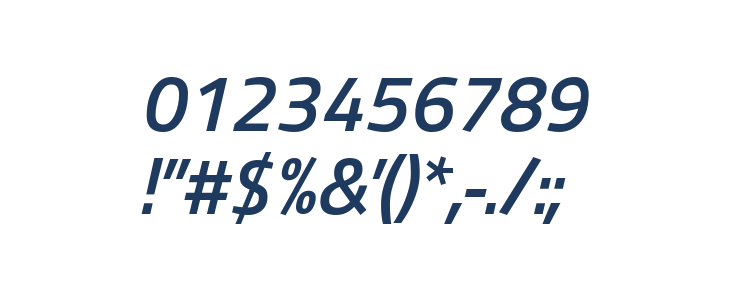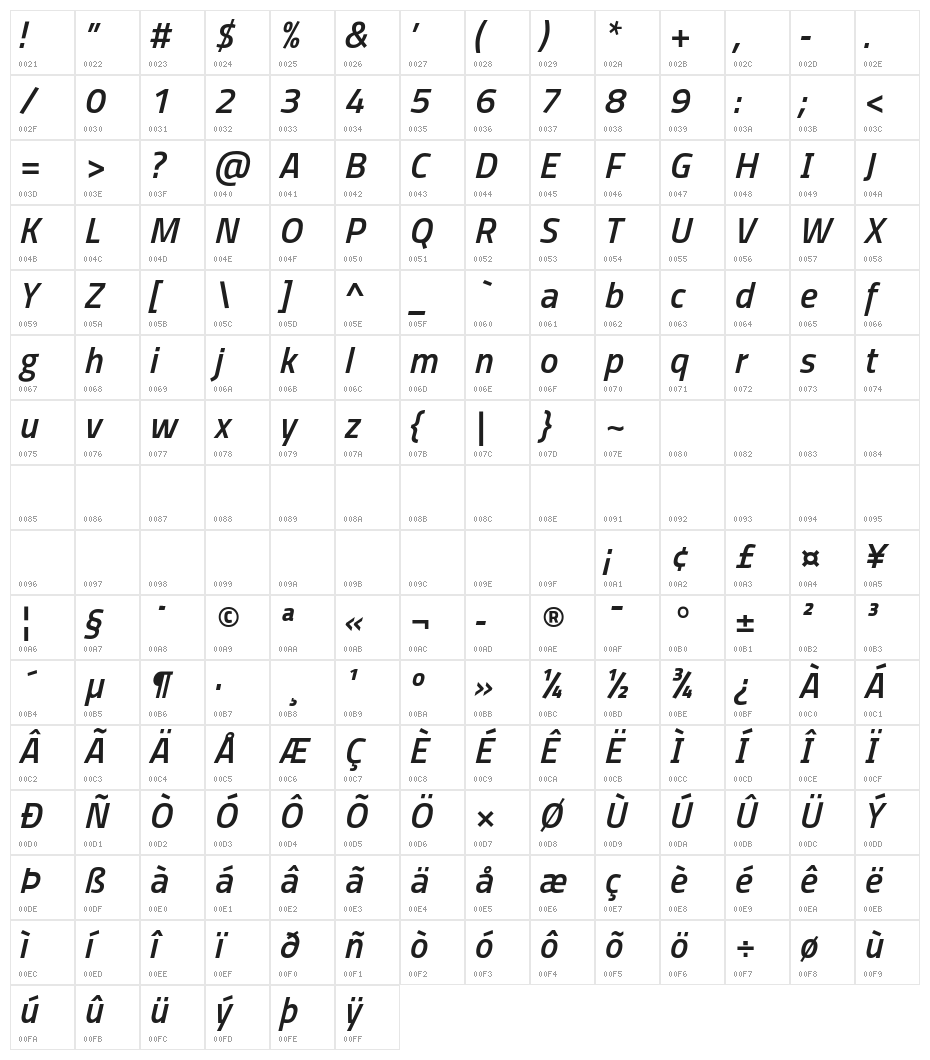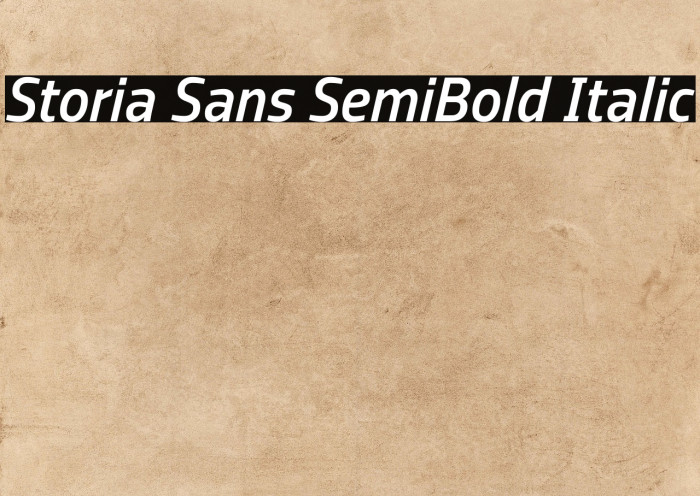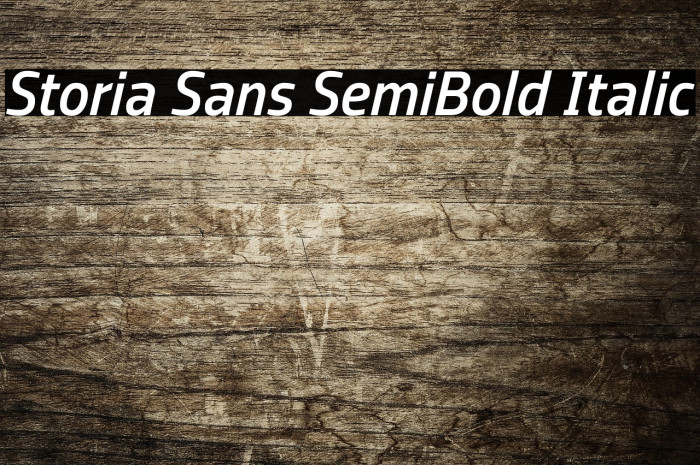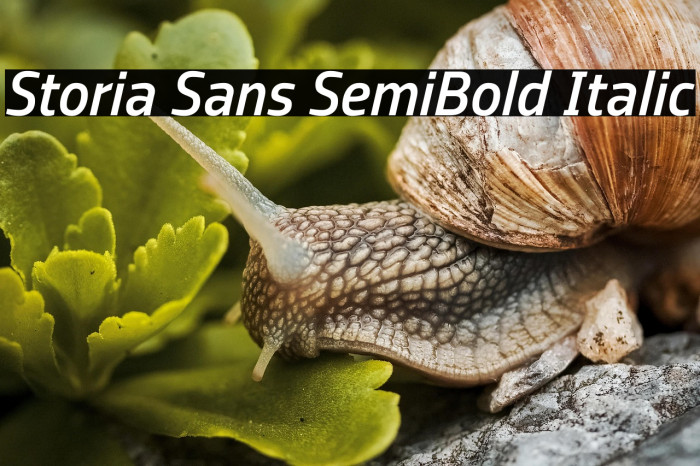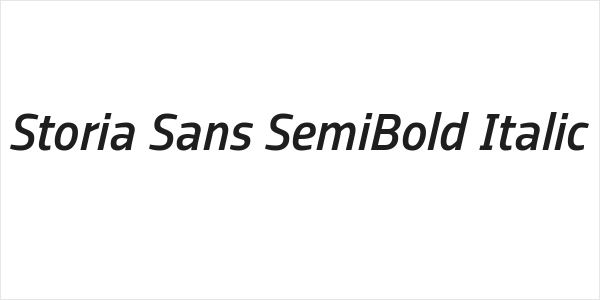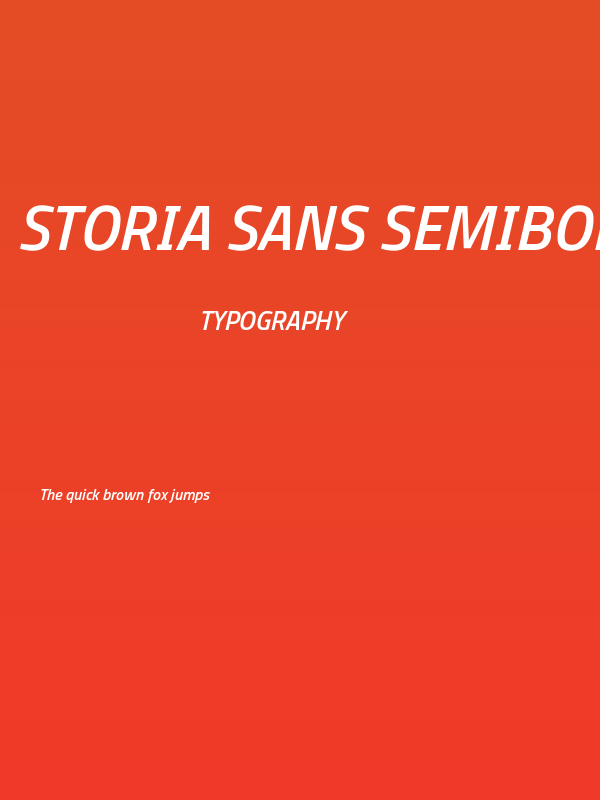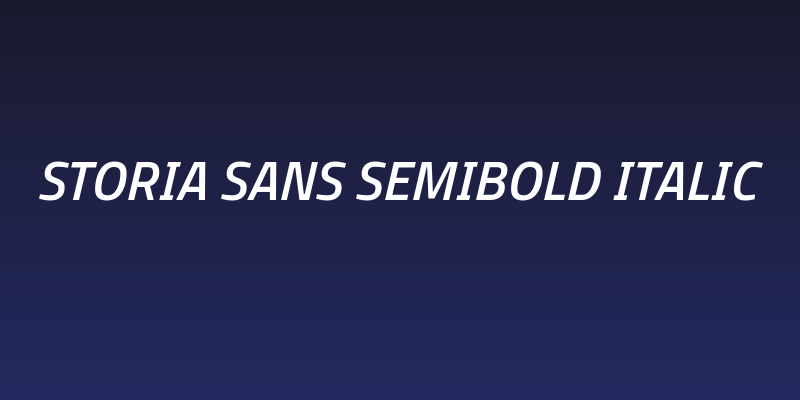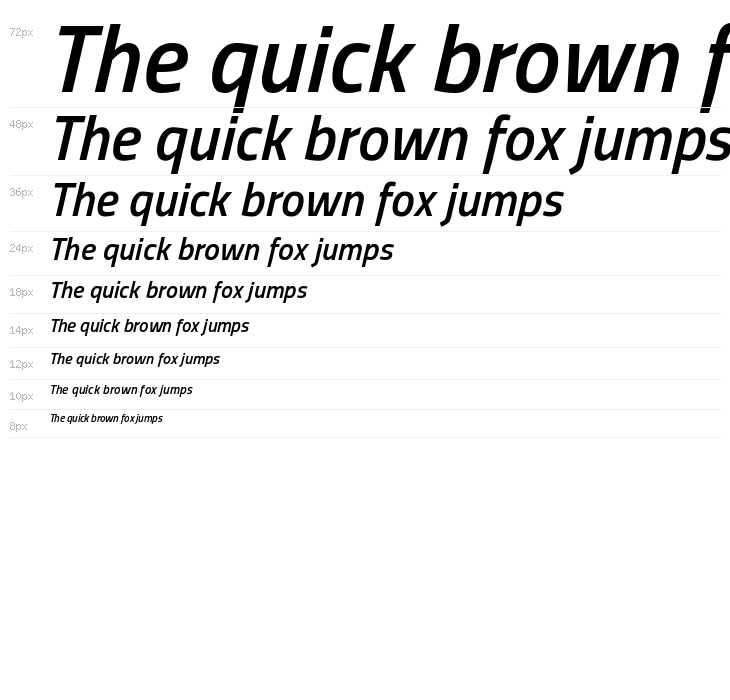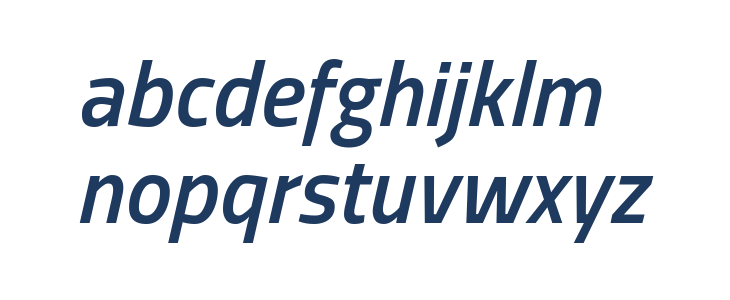
Storia Sans SemiBold Italic Font
Storia Sans SemiBold Italic Description
This font exhibits a modern sans-serif style with a semi-bold weight and italicized form. The characters are sleek and slightly condensed, providing a contemporary and professional appearance. The strokes are consistent, with medium contrast, offering a clean and legible look. The italic angle adds a dynamic and forward-moving feel, making it suitable for both digital and print media. The character spacing is normal, ensuring readability while maintaining a compact form. This font is versatile, fitting well in various design contexts where clarity and modernity are desired.
| Proposed Projects | Ideal for branding, advertising, digital interfaces, and editorial design. |